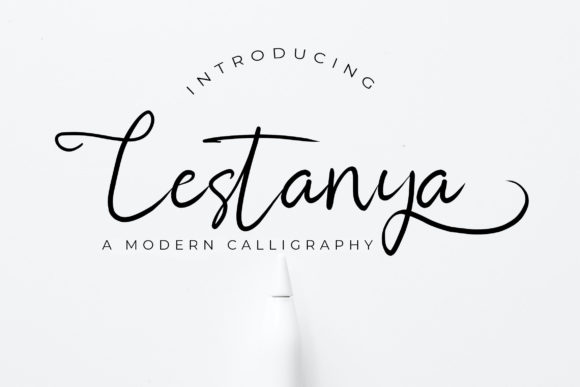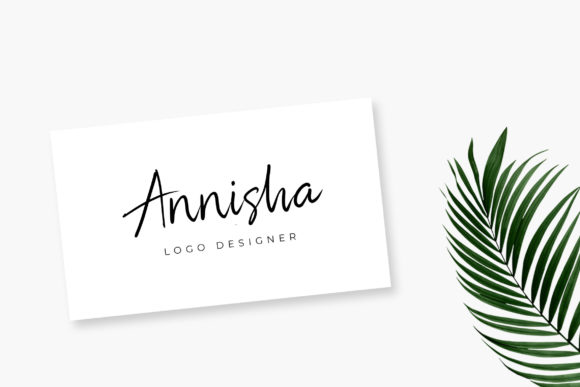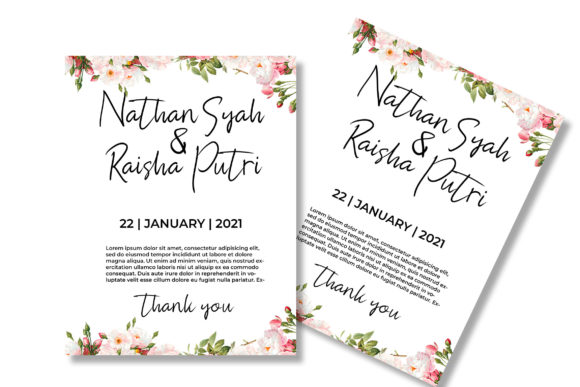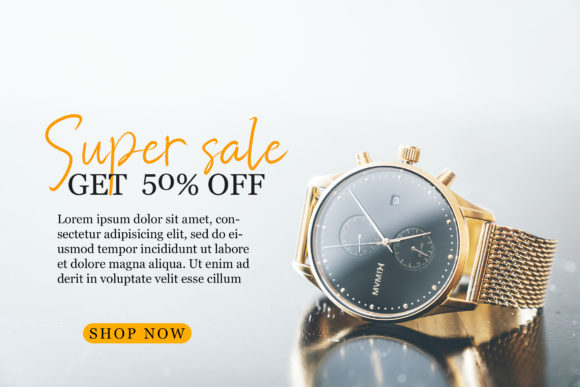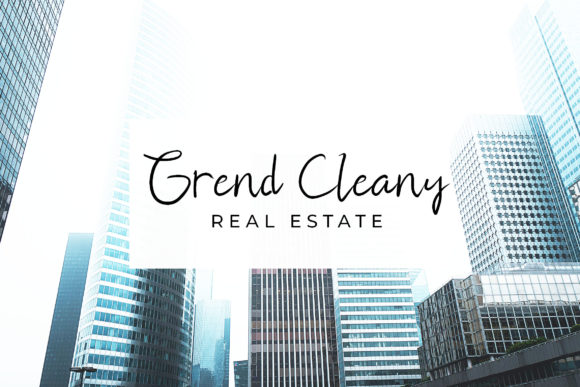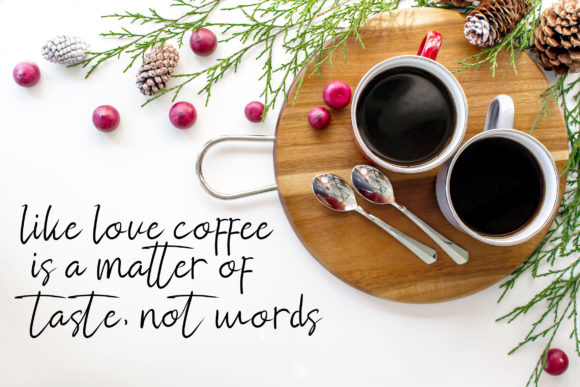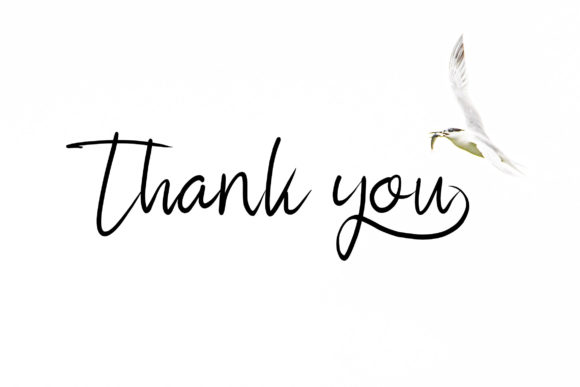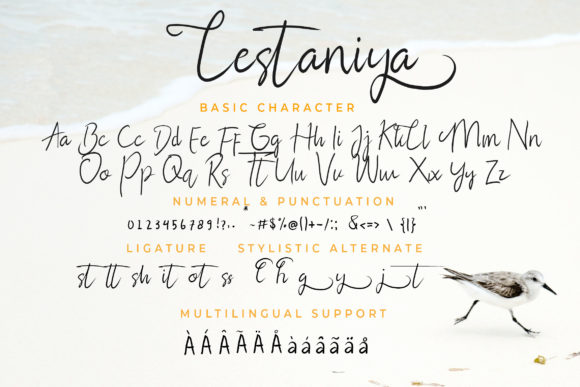
Lestanya Font
About Lestanya Font
Introducing Lestanya, a flowing handwritten font that embodies an elegant touch, perfect for your favorite projects. With its distinct and timeless style, Lestanya captures attention and adds a touch of sophistication to your designs. Fall in love with its graceful letterforms and use it to create spectacular and visually captivating designs.
Lestanya’s flowing handwritten design sets it apart as a font that exudes a sense of beauty and elegance. Each letter carries a natural and fluid flow, creating a visually pleasing composition. This flowing style adds a touch of grace and charm to your designs, making them stand out and captivate viewers.
The distinct and timeless style of Lestanya ensures that it remains a valuable asset in your design toolkit. Its unique letterforms and elegant touch make it suitable for various projects, from branding materials to invitations, social media graphics to packaging, and beyond. Lestanya brings a touch of sophistication that enhances the overall aesthetic.
Fall in love with Lestanya’s incredibly distinct style and let it inspire your creativity. Its timeless appeal makes it a versatile choice for both personal and commercial projects. Whether it’s for wedding stationery, logo design, or any creative endeavor, Lestanya’s flowing handwritten font adds a touch of uniqueness and refinement.
Lestanya’s elegant touch lends itself to creating spectacular designs. Its graceful letterforms allow for beautiful compositions and harmonious arrangements. Whether used as a headline, body text, or decorative element, Lestanya elevates the visual impact of your designs.
In summary, Lestanya is a flowing handwritten font that captures attention with its elegant touch. Its distinct and timeless style adds a touch of sophistication and beauty to your favorite projects. Embrace Lestanya and let its graceful letterforms inspire you to create spectacular and visually captivating designs that stand the test of time.